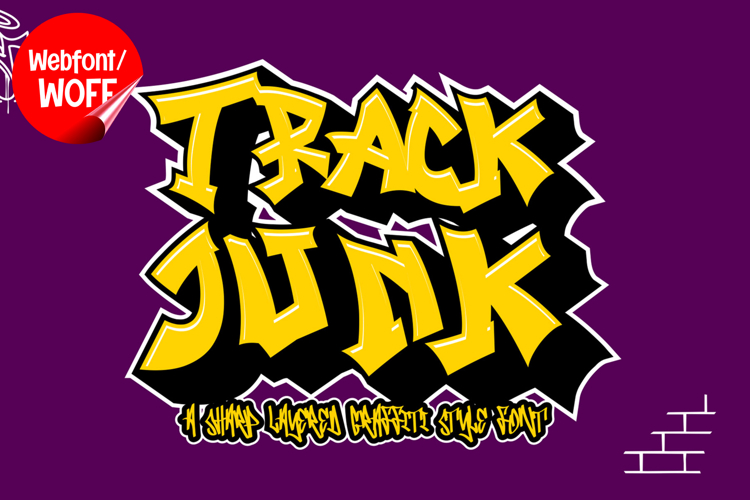
Track Junk | Shadowed Graffiti Webfont for Urban Impact
Track Junk is a shadowed graffiti webfont designed to deliver bold urban energy and dimensional style for modern website design. Inspired by street tagging, spray paint layering, and underground art culture, this font features strong letterforms combined with shadow effects that create depth and visual intensity. It is an excellent choice for projects that aim to stand out with a powerful and expressive typographic identity.
Track Junk includes a complete set of uppercase characters designed with bold graffiti-inspired shapes. The addition of shadow elements enhances each letter with a sense of dimension and contrast, making it ideal for headlines, banners, hero sections, and featured content. The layered appearance gives the typography a strong visual presence that instantly captures attention.
In addition to letters, the font includes numbers and punctuation, allowing flexible usage across various parts of a website. It works well for promotional content, branding elements, event announcements, and navigation highlights. Each character maintains a consistent shadowed graffiti style, ensuring a cohesive and unified visual identity throughout the design.
With multilingual support, Track Junk includes a wide range of accented characters, making it suitable for international websites and global audiences. This allows content to be displayed clearly across different languages while maintaining the bold and urban aesthetic.
The shadowed graffiti style of Track Junk makes it especially suitable for urban-themed websites, streetwear brands, music platforms, gaming interfaces, and creative portfolios. Its layered and dimensional design adds depth and attitude, helping websites stand out in competitive digital environments. The shadow effect enhances visual impact while reinforcing a street-inspired identity.
Despite its bold and decorative style, Track Junk is designed with readability in mind. The spacing and proportions are carefully balanced to ensure clarity, particularly in display sizes. This makes it effective for impactful headings and short content elements where both style and usability are important.
Track Junk is a webfont that combines graffiti aesthetics with shadowed depth and modern digital performance. Its bold forms, layered effects, and urban character create a distinctive typographic presence that enhances website design. For projects that require a strong, edgy, and visually engaging graffiti font, Track Junk offers a powerful and versatile solution.